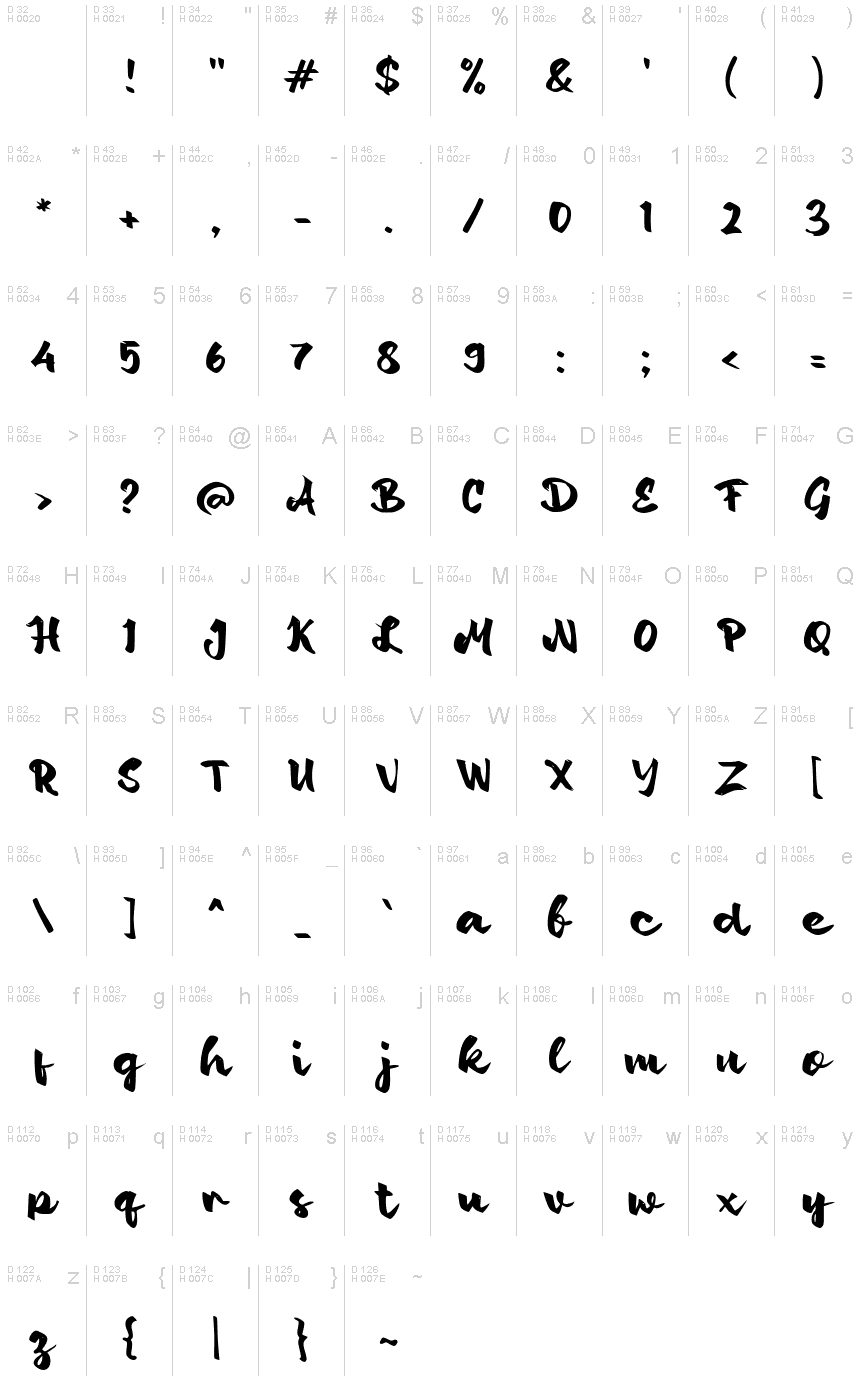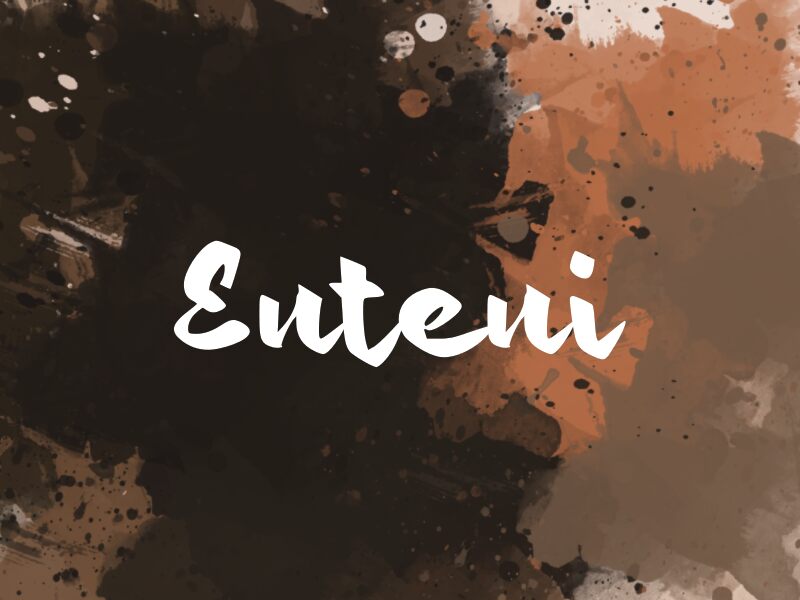
Enteni
Enteni, a striking brush and marker font by wep, exudes boldness and creativity with every stroke. Its textured appearance adds a touch of whimsy to any project.
Whether you're designing eye-catching logos for adventurous outdoor brands or crafting captivating social media posts for modern cafes, Enteni's bold style will leave a lasting impression. Its versatility extends to packaging designs for artisan products or creating unique invitations for lively events.
Infuse your projects with the energetic charm of Enteni, making them truly unforgettable.